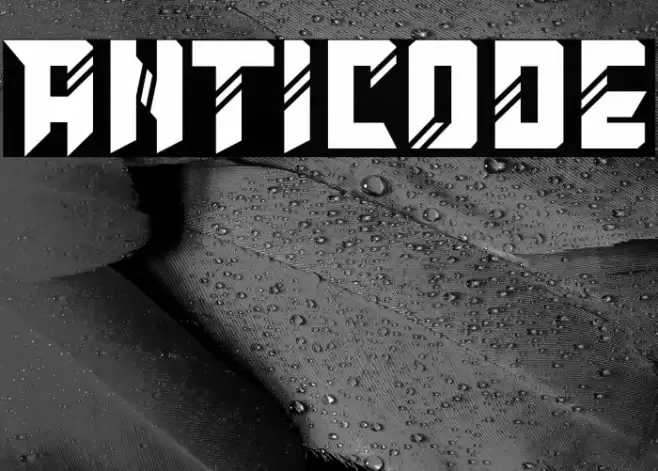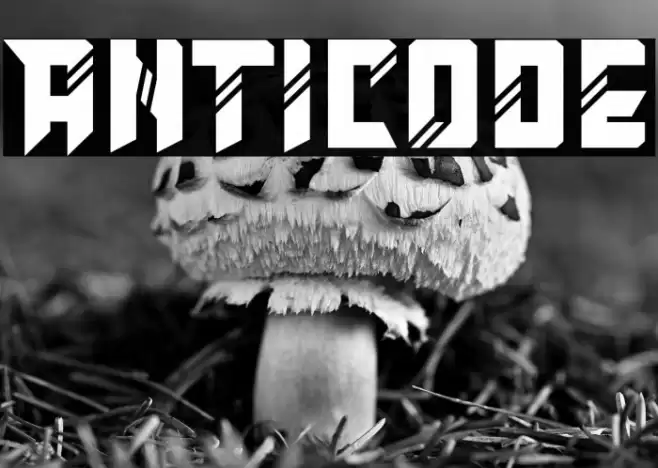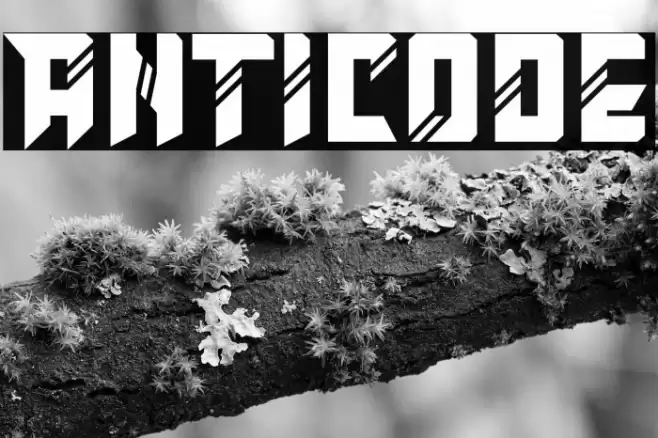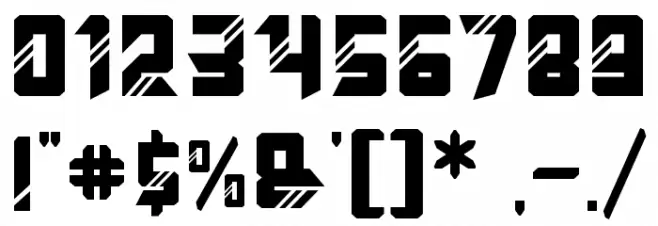
Anticode Font
Anticode Description
This font features a bold, geometric design with sharp angles and a futuristic aesthetic. The characters are constructed with solid, block-like forms, incorporating diagonal lines that add a sense of movement and dynamism. The uppercase and lowercase letters maintain a consistent style, emphasizing uniformity and strength. Numbers and special characters are designed to match the overall bold and angular theme, making them stand out prominently. The font's unique style is ideal for projects that require a modern, edgy look.
A bold, geometric font with sharp angles and a futuristic style from Regular fonts.
- Proposed Projects: Ideal for branding, posters, video game graphics, and sci-fi themed designs.
- Overall Style: Futuristic, Modern